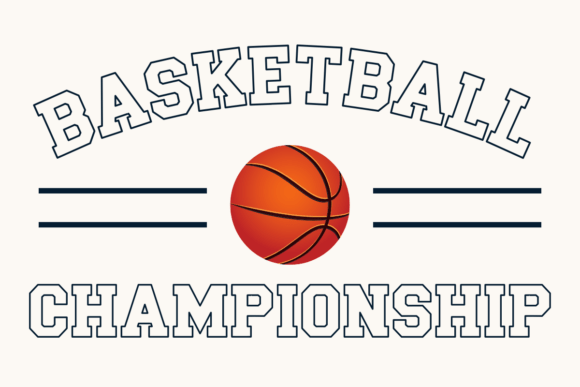
Outline Varsity Font
Outline Varsity is a bold and strong sports-themed outline display font with a classic varsity style.
Perfect for sports team logos, school apparel, posters, banners, jersey numbers, yearbook titles, tournament flyers, and college-themed branding, Outline Varsity brings a timeless American college feel to your creative projects.
Whether you’re working digitally or in print, this font delivers high-impact results while remaining clean and easy to read. The outlined letterforms add a touch of style to the traditional varsity font.